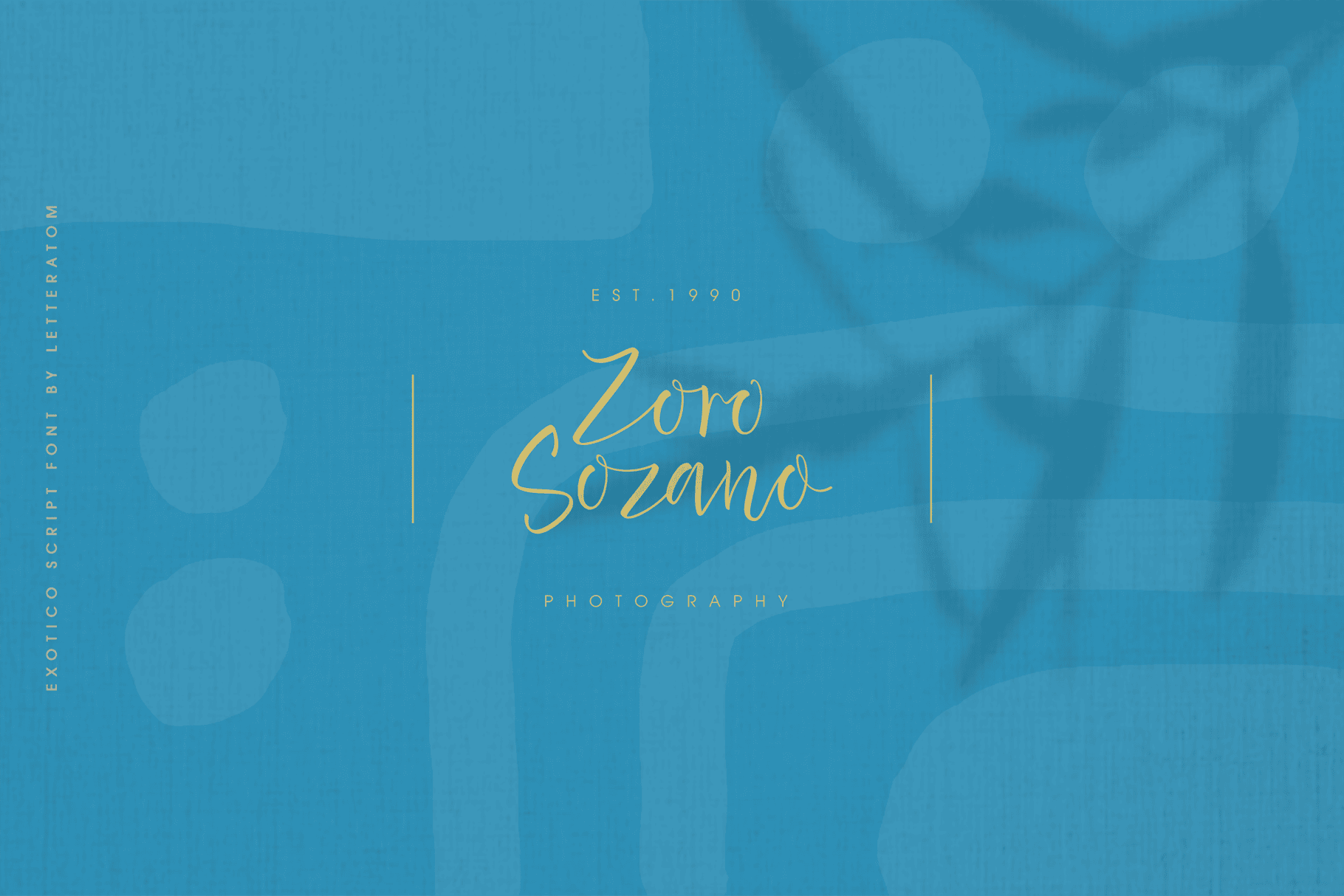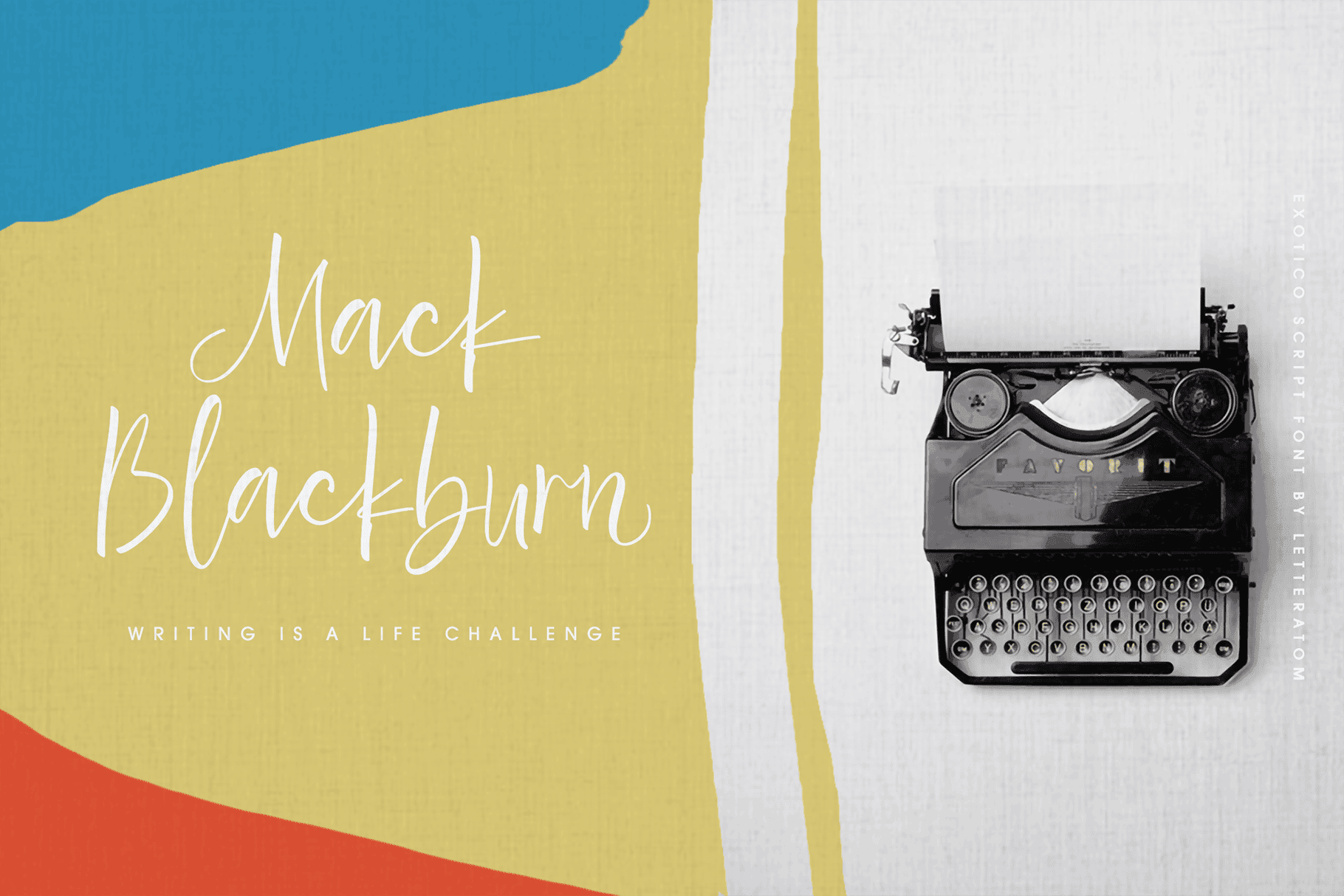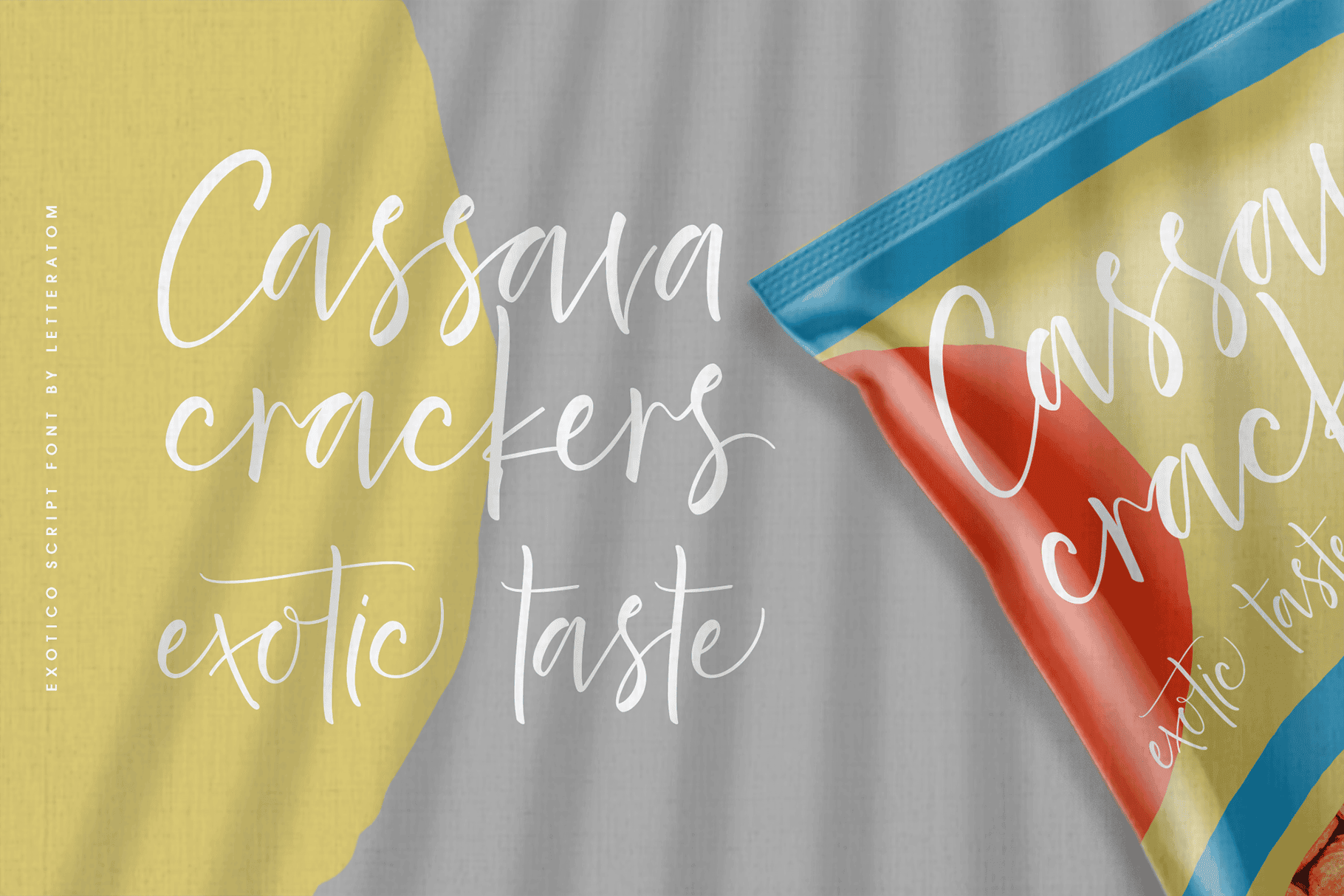
Hi There, Exotico is special in that one word can be written in a million different ways. With a picturesque and exotic touch, it will give a new feel for all your design needs. Whats incuded: Exotico.otf containing upper & lowercase characters, full set of punctuation and numerals, with opentype features with stylistic alternates and ligatures. Exoticottf – For folks without opentype capapble software, the standard Serendipity font with the first set of letters. Features : Ligature,Contextual Alternates, Stylistic Alternates, PUA Encoded Can’t wait to hear your comments and we are very grateful for your visit to our store. if there any questions, please feel free to ask me, i’m happy to help. Have a great day! Thank you 🙂